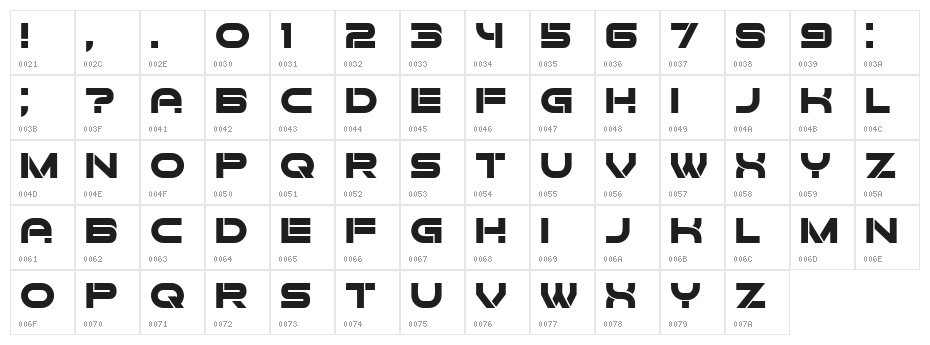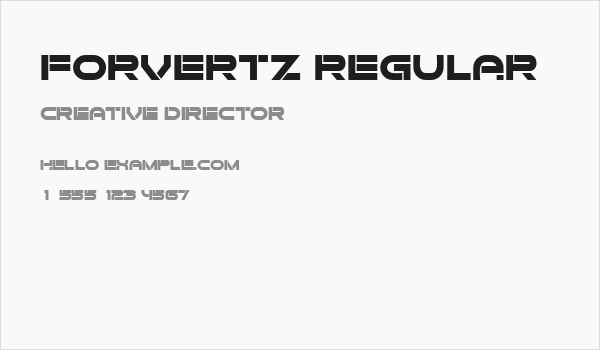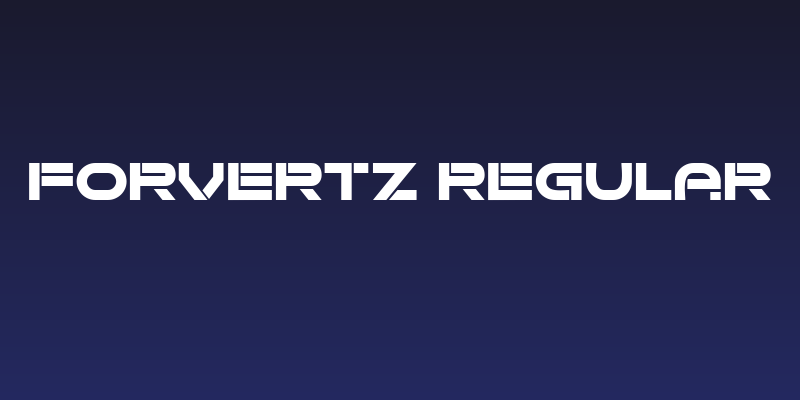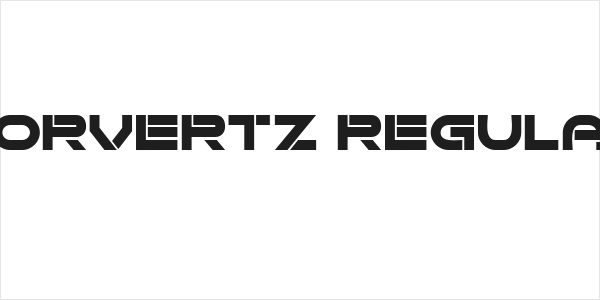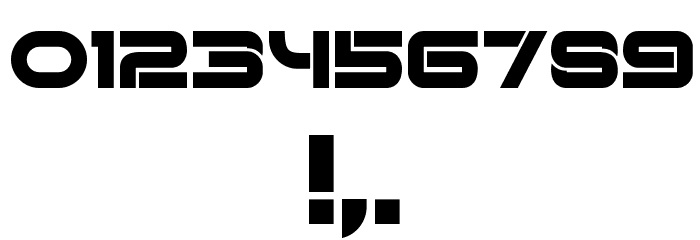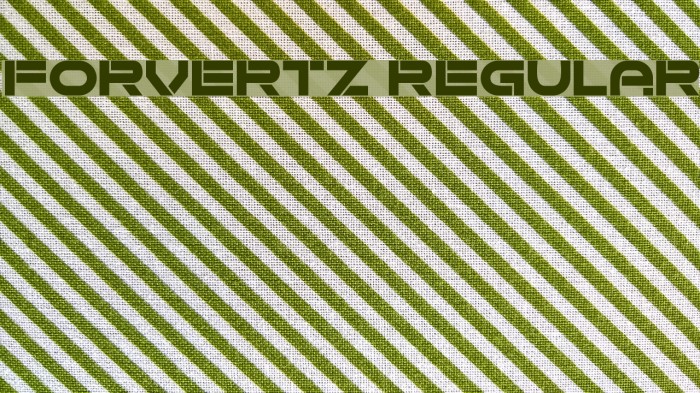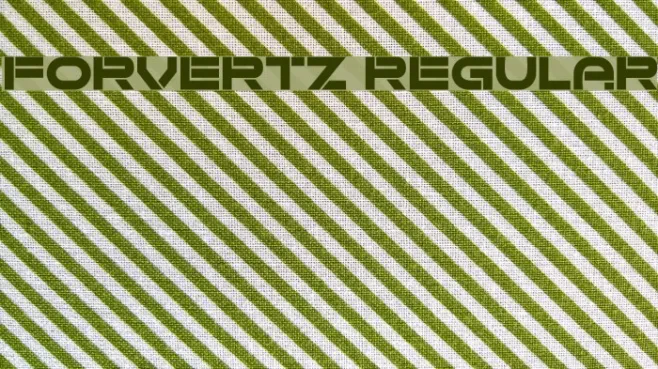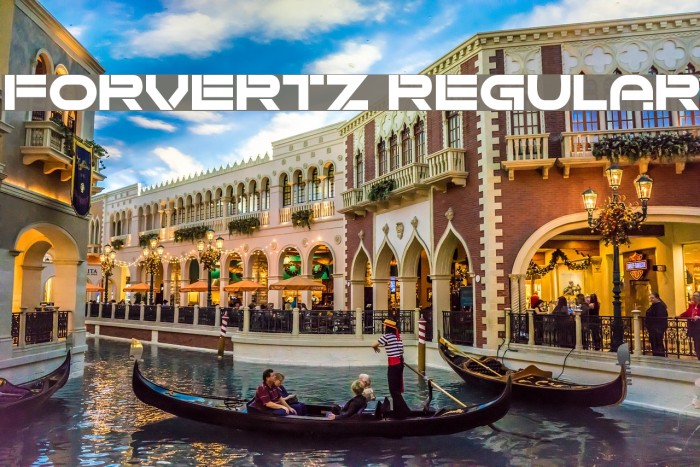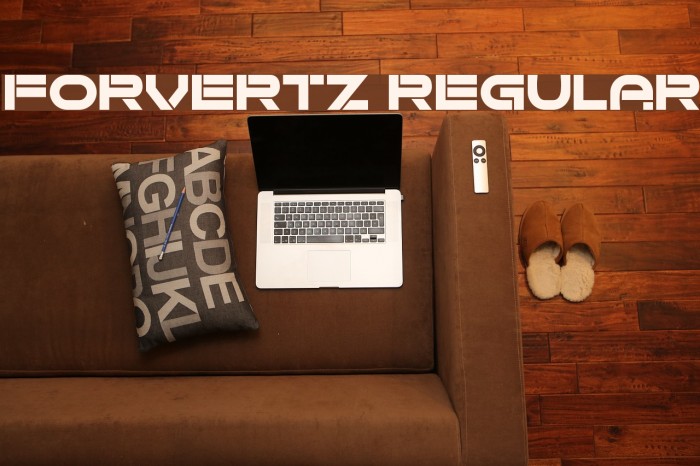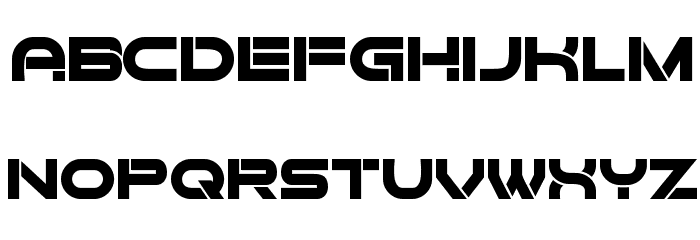
Forvertz Regular Font
Forvertz Regular Description
This font features a bold, futuristic design with geometric shapes and sharp angles. The characters are constructed with a combination of solid and negative spaces, creating a striking visual effect. The uppercase letters are uniform in height, while the lowercase letters maintain a consistent style with a slightly more compact form. The numerals are equally bold and geometric, complementing the overall aesthetic. Special characters are designed to match the boldness and style of the alphabet, making this font ideal for modern and tech-oriented projects.
| Proposed Projects | Ideal for technology branding, sci-fi posters, video game titles, and modern logos. |